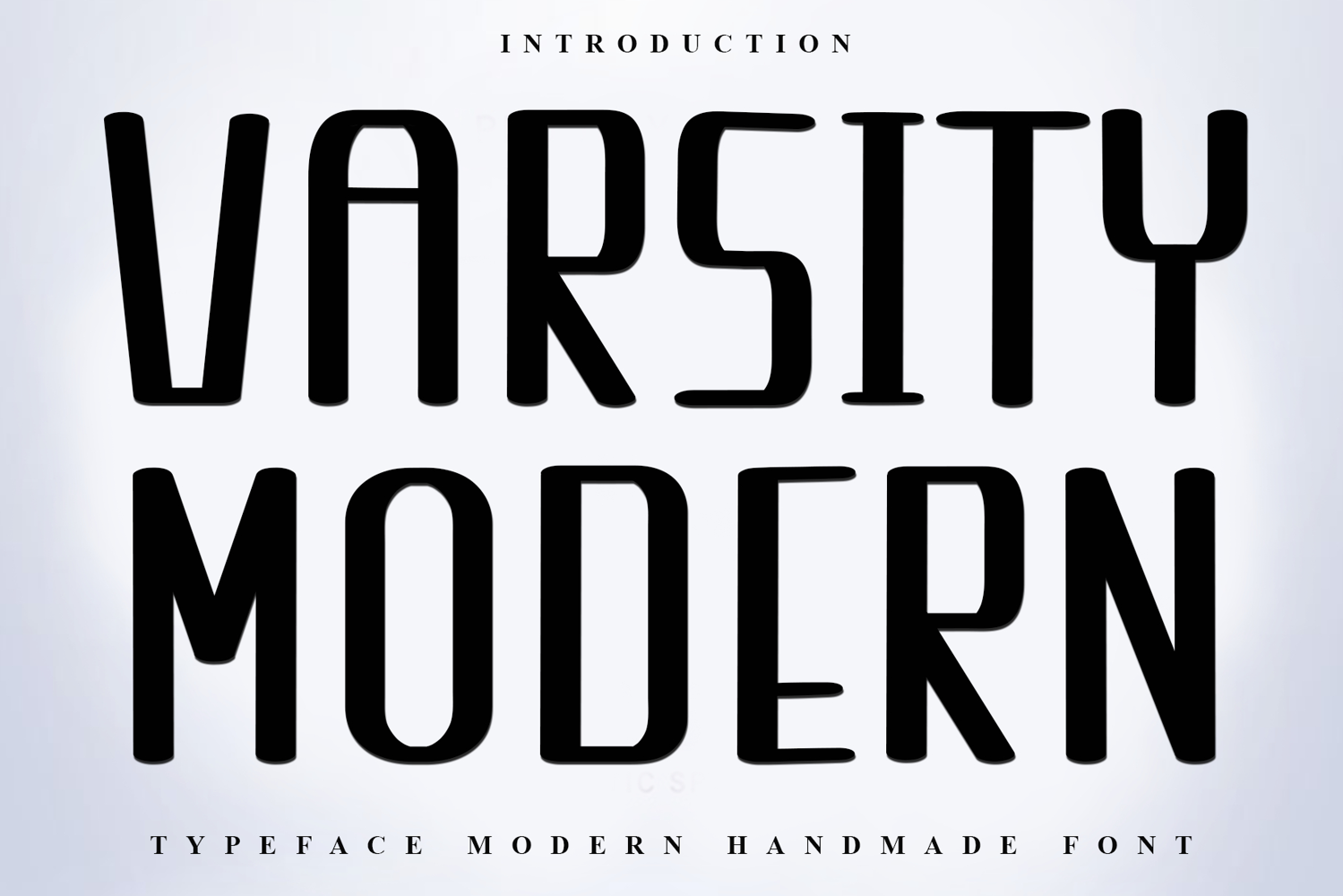
Varsity Modern
Varsity Modern is a beautiful and eye-catching font designed with a soft, unique touch. Its distinctive strokes give it a special character, making it meaningful and versatile for future use. With various characters, it’s perfect for design projects, crafts, and other creative works.